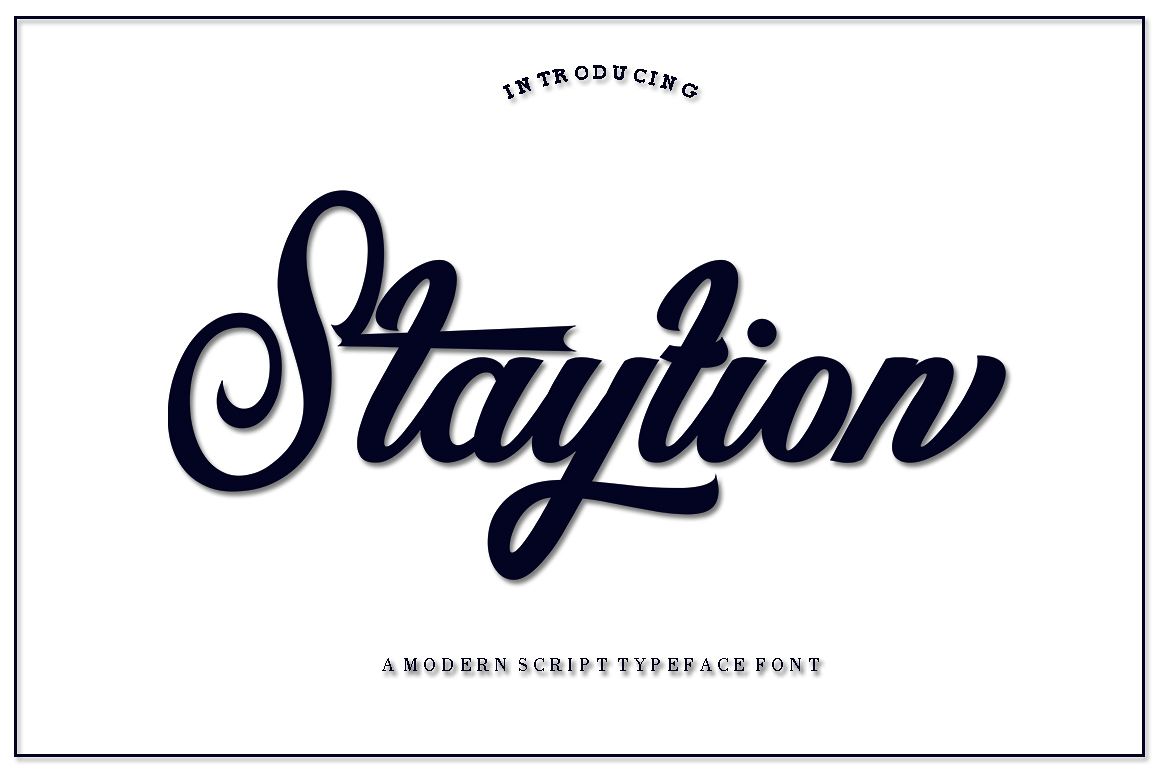
Give your typographic design with a retro style touch with Staytion!
Staytion is one of my fonts based on the handwriting project in 2019.
It was very inspired by the famous retro typography design in the late 60s to 70s.
Staytion is also equipped with very many interesting alternatives.
So you don't need extra effort to create effects or other internet drives to this font.
This means it will save you time.A total of 500 flying machines were made in Staytion and several OpenType Features are also added to this bold and sporty font.
Its features include:
Stylistic Alternate, Swash, Ligatures, Contextual and Stylistic Sets.